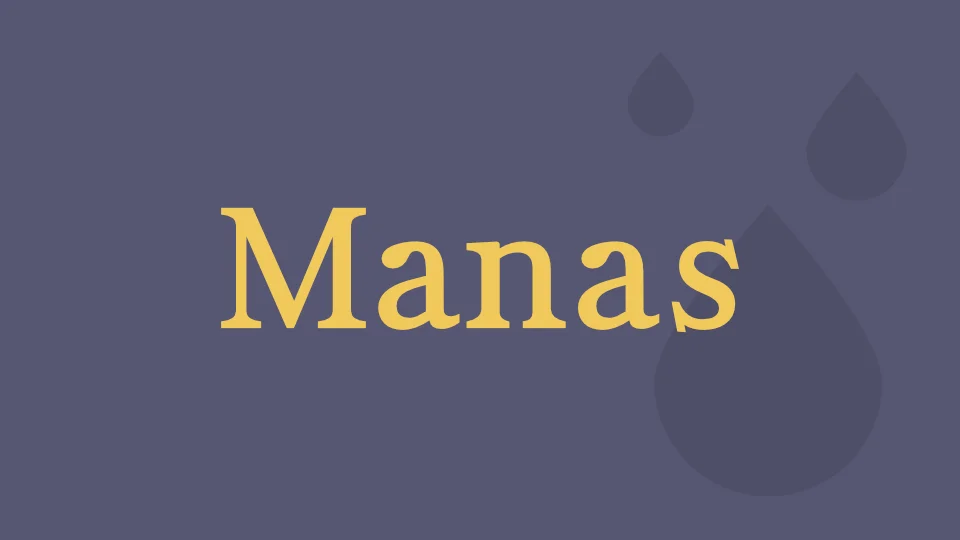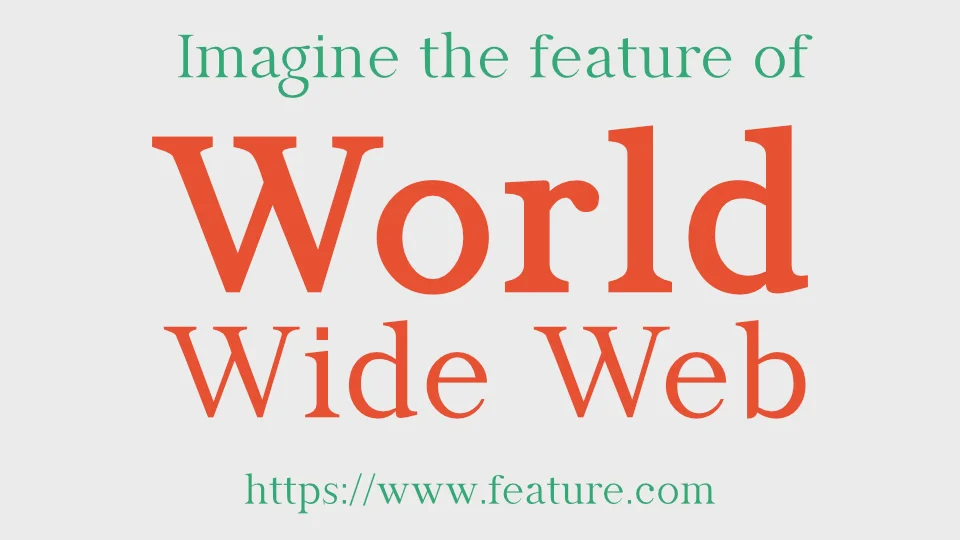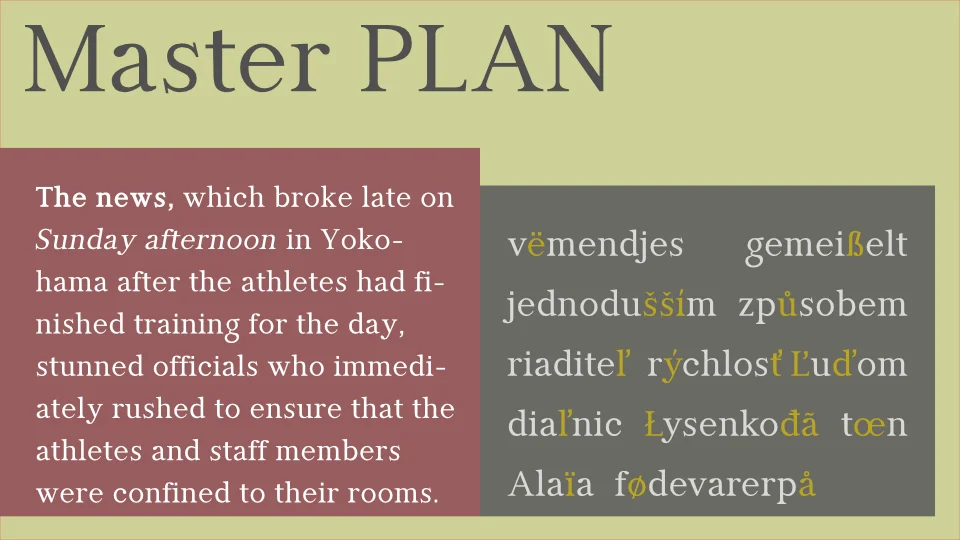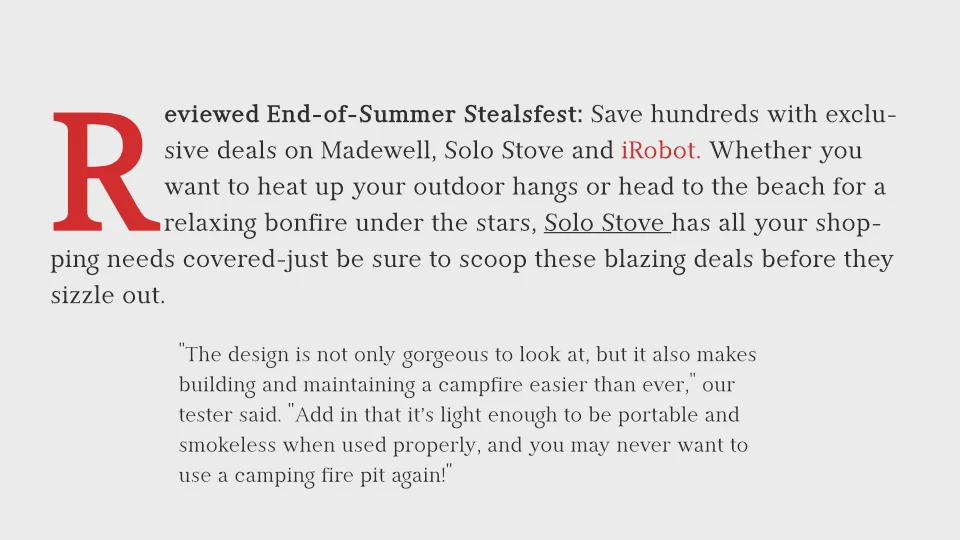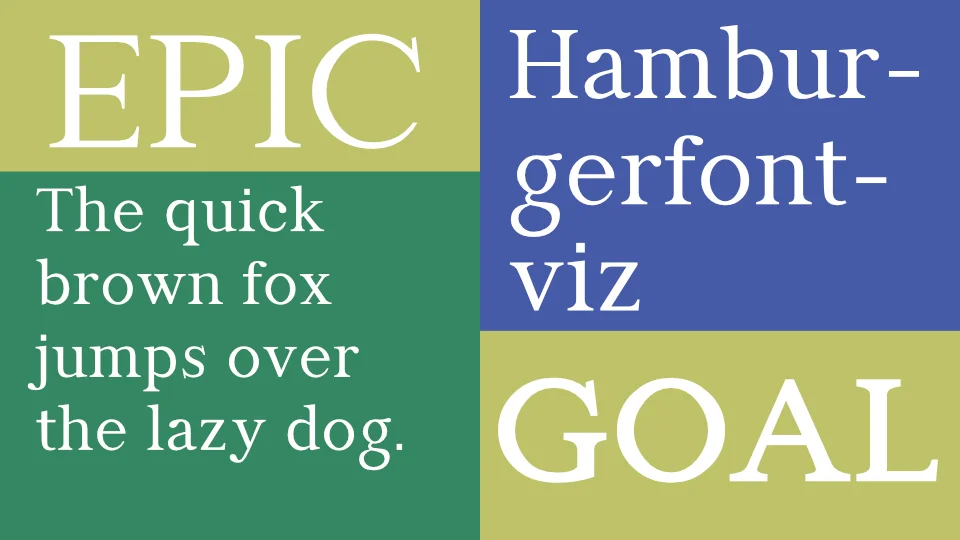
Manas
Manas is the name of the epic of the Kyrgyz Turks. The font family was also designed with serifs to reflect the characteristics of the epic it was named after. One of the most important features of the Manas font is that it is multilingual. The Manas font includes most of the accents of the Latin alphabet. The Manas font is an innovative and open to updates font. It is also aesthetic. The Manas font includes six weights starting from light to extrabold. It also has four different widths: condensed, narrow, wide and expanded. This second version of the font in particular was reconsidered and its design was renewed in a way that will include many innovations in terms of design, gain a more aesthetic and more stable form. In short, the Manas font has gained many dazzling features with its opentype features. In this context, we can list the innovations gained by the second version of the Manas font as follows:
- Standard ligature
- Discretionary ligature
- Historical ligature
- Slashed zero
- Stylistic alternatives for A, a, J, j and 3
- Character variation for the letters A and E
- Swash for the letters E, S, Z, w and Q
- Old style
- Proportional
- Tabular
- Numerator
- Denominator
- Fraction/Alternate fraction
- Ordinal (a-z)
- Small capital
- Small capital from capital
- Petite capital
- Petite capital from capital
Manas font includes fonts that offer multi-purpose usage opportunities, especially suitable for printed products, media, digital environments and every field where writing is the subject. As Fontuma Foundry, we designed not fonts but the happiness you will feel when you press the keys on your keyboard.